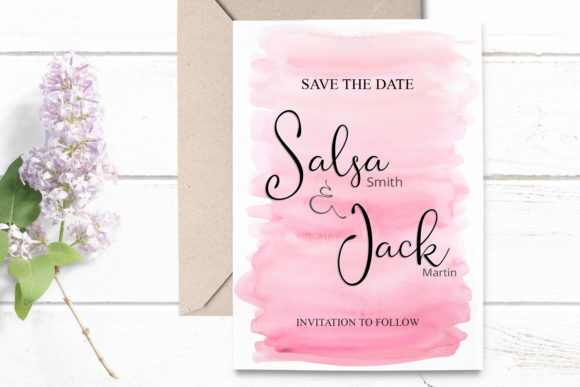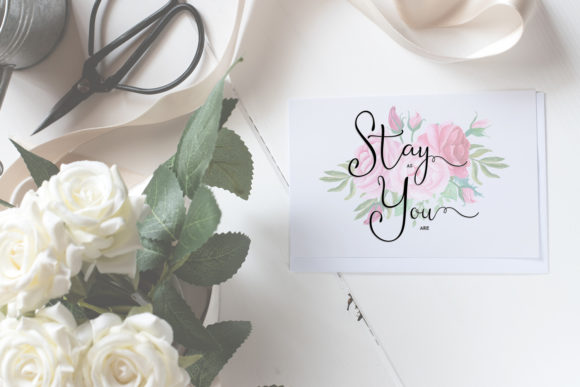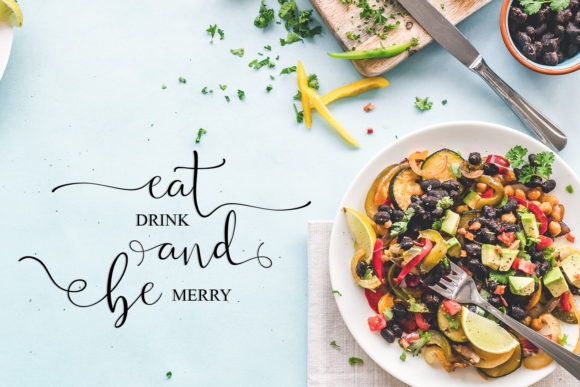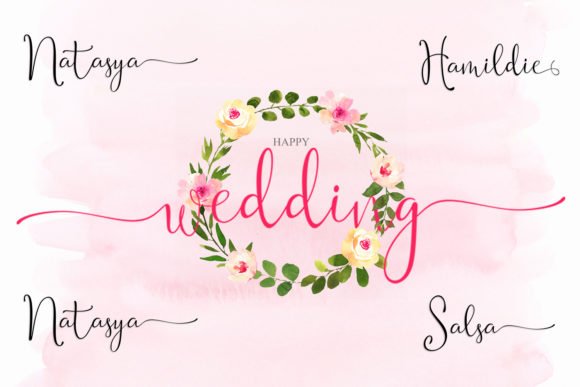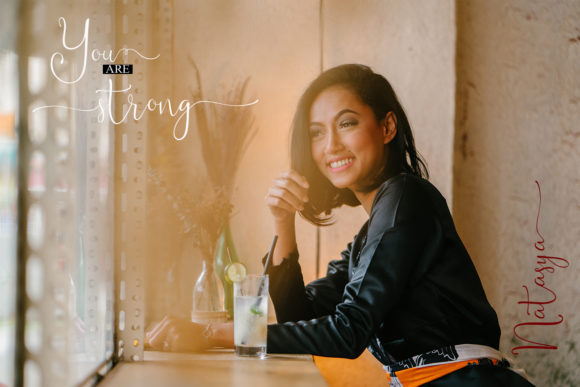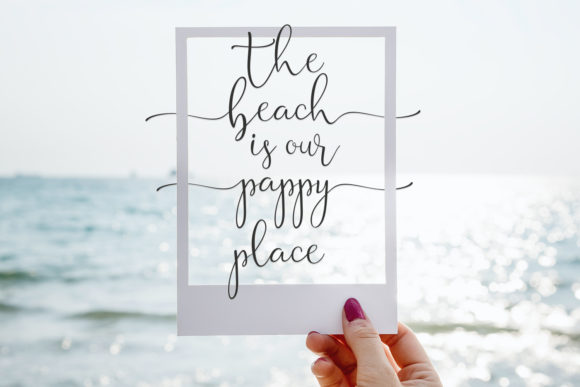
Introduction to Notalistic Font
Have you ever been stuck in a creative rut, struggling to find the perfect font to match the essence of your project? You know, that feeling when you’re pouring your heart and soul into a design, and all you need is that one special element to make it truly shine. For many designers, this is a familiar experience, and it’s where the Notalistic Font comes in – a game-changing design resource that can elevate any high-quality creative project.
With its smooth lettering and natural flow, the Notalistic Font is a true masterpiece. Its organic script is not only visually stunning but also exudes a sense of romance and authenticity that’s hard to find in other fonts. Whether you’re working on a wedding invitation, a boutique logo, or any other design that requires a touch of elegance, this font is sure to impress. And the best part? It’s available for a free download, complete with a transparent background, making it easy to incorporate into your design.
- Unique, high-quality font design ideal for creative projects, offering a distinctive aesthetic.
- Supports various languages, ensuring its usability in multilingual creative projects.
Honest Review: Notalistic Font
Here are some things that work well with the Notalistic Font:
- ✨ Unique and creative design aesthetic that adds a touch of elegance to any project
- ✨ High level of detail and attention to texture, making it perfect for projects that require a sophisticated look
- ✨ Transparent background, allowing for easy customization and integration with other design elements
- ⚠️ Limited character set, which may not be ideal for projects that require a wide range of characters
- ⚠️ Some characters may not display properly on certain devices or platforms, which could lead to formatting issues
Overall, I’m impressed with the Notalistic Font and its potential to elevate any creative project. While it may have some limitations, it’s definitely a valuable addition to any designer’s toolkit. With a little creativity and experimentation, I’m confident that the Notalistic Font can help bring your design projects to life.
The Notalistic Font is perfect for high-quality creative projects that require a unique and creative touch. It can be used in various design applications, including Canva, Adobe Photoshop/Illustrator, and PowerPoint/Word.
To get the most out of the Notalistic Font, use it on a transparent background to create a clean and minimalist design. You can also experiment with different font sizes and colors to create a unique and creative look.
The Notalistic Font is commonly used in various design projects, including logos, brochures, business cards, and social media graphics. It’s also a great choice for creating high-quality designs for clients who require a unique and creative touch.